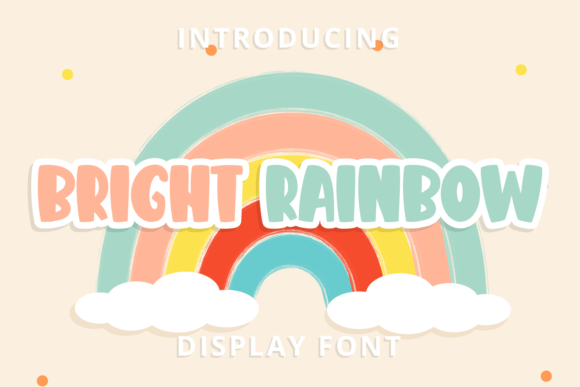
Introducing our enchanting Bright Rainbow Font, a whimsical display font that will ignite your creativity and add a touch of joy to any digital masterpiece. Picture this: a font so captivating, it'll make your words dance across the screen, enchanting your audience with its playful charm.
Crafted with meticulous care by the talented Planetz Studio, this masterpiece is a font style for Halloween that will cast a spell on your designs. Its vibrant hues and playful curves evoke the magic of this beloved holiday, making it the perfect choice for creating eye-catching posters, invitations, and social media posts that will hauntingly delight your followers.
But this font isn't just for Halloween! Its versatility extends far beyond the realm of spooky celebrations. Whether you're designing packaging for delectable treats like snacks, milk, yogurt, or jelly, or creating whimsical artwork for kids' rooms, Bright Rainbow Font will infuse your creations with a touch of whimsy and cheer.